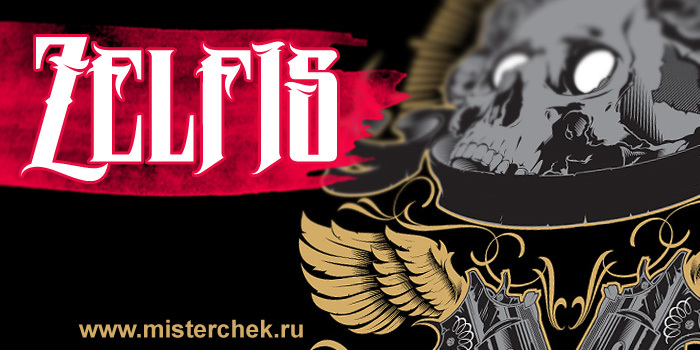
MCF Zelfis by Mister Chek is a free modern Gothic display font with a severe, elongated silhouette and sharply cut details. Its narrow letters alternate broad vertical strokes with hairline joins, deep notches, and hooked points that give the design the look of wrought metal ornament.
A fashion label, music venue, or alternative clothing brand could build a memorable identity around its dark, theatrical forms. It also suits concert posters and album packaging. Across those uses, the repeated spikes and compressed proportions can turn the lettering into an emblem, tying names and product marks to a modern blackletter aesthetic with a distinctly architectural edge.